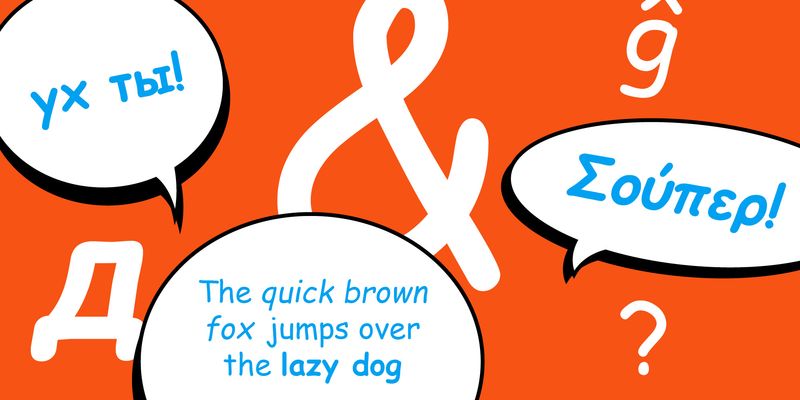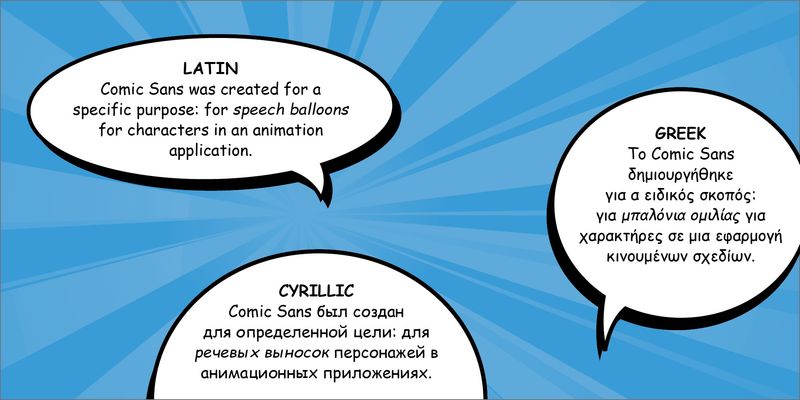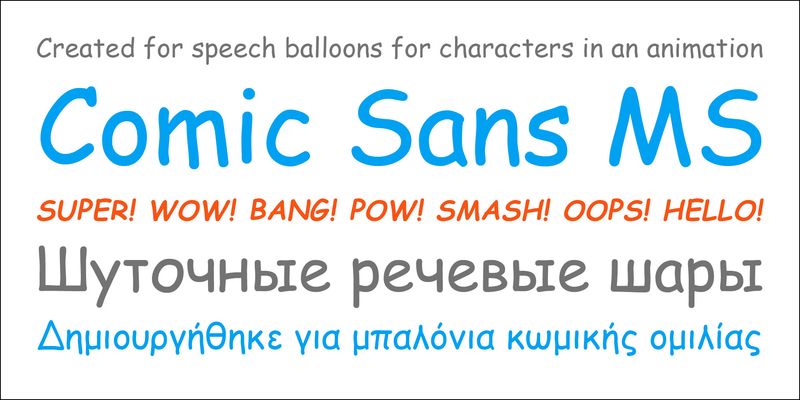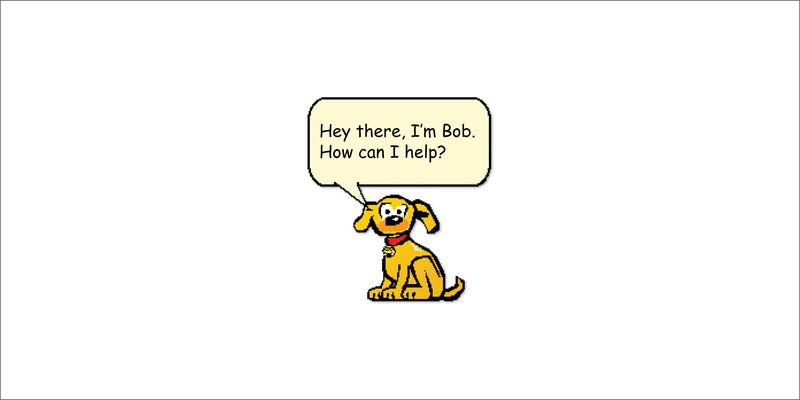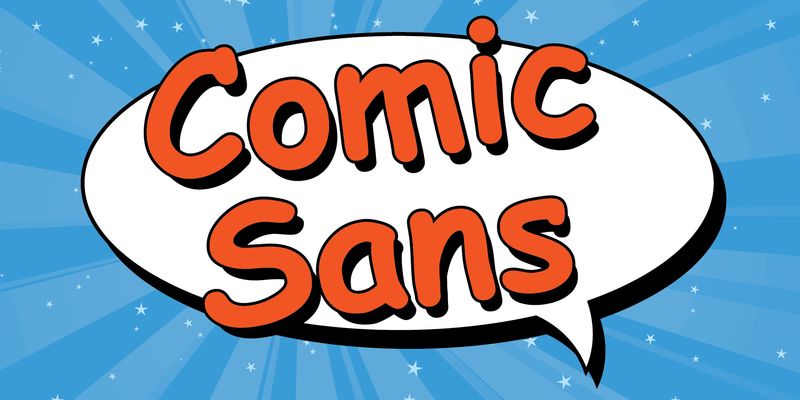
Comic Sans is a fun typeface that embodies the spirit of informality. It looks hand-lettered, with a felt-tip pen. Comic Sans is familiar, used widely all over the world for correspondence, flyers, birthday cards, and labels that are meant to look handmade. It is surprisingly readable in text, whether in print or onscreen. Its imperfect, irregular shapes make it inappropriate for formal documents, although it has often been used in unexpected ways.
As its name suggests, Comic Sans looks like the lettering in a comic book. It was created in 1994 by type designer Vincent Connare for a specific purpose: for speech balloons for characters in an animation application. It was included in the Windows 95 Plus! add-on as well as Internet Explorer, and became wildly popular (as well as much reviled by those who dislike its playful sloppiness). Comic Sans came originally in two weights, Regular and Bold; later, true italics were added for each.